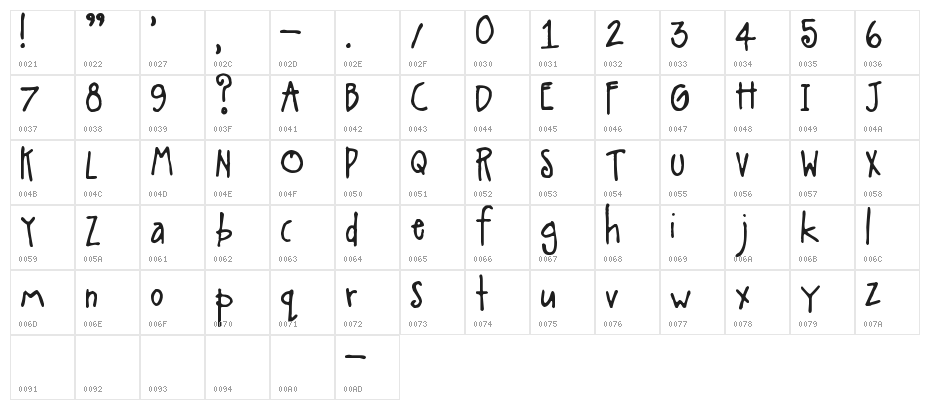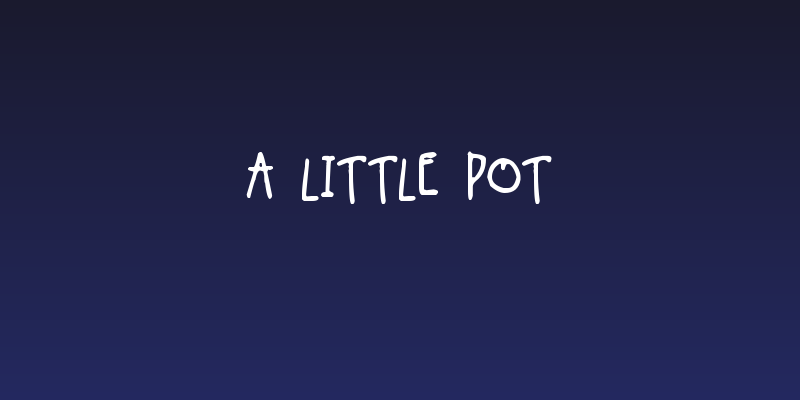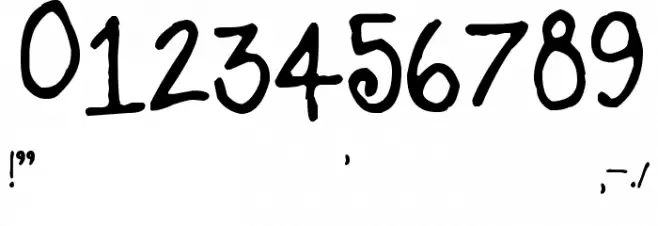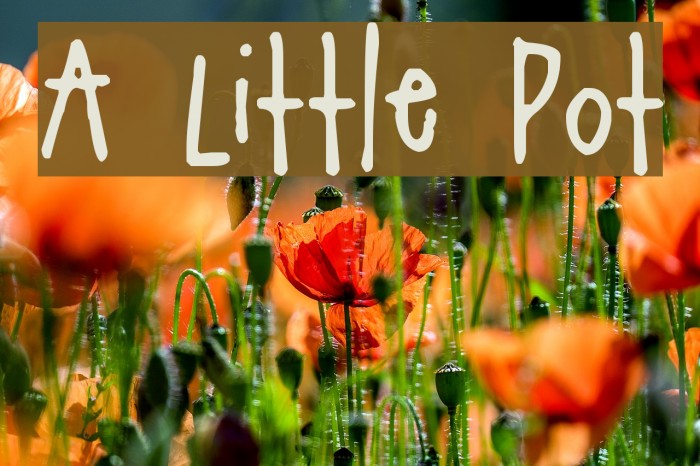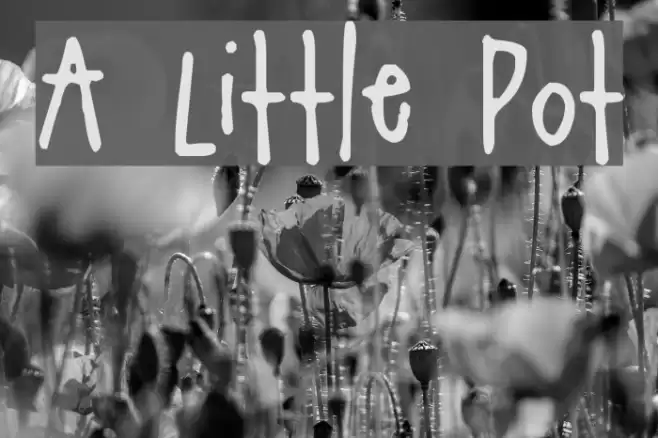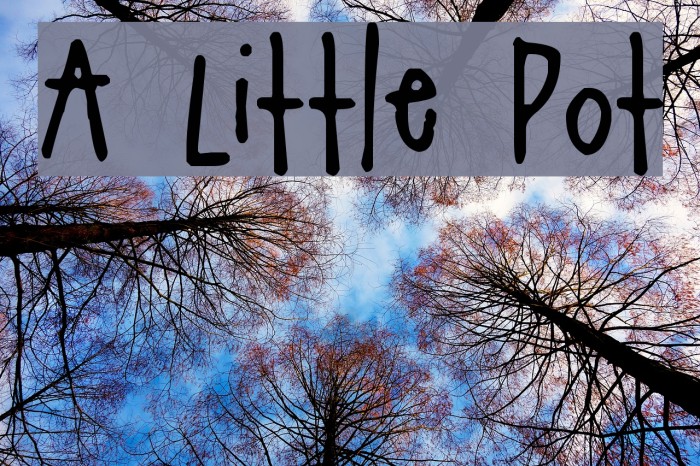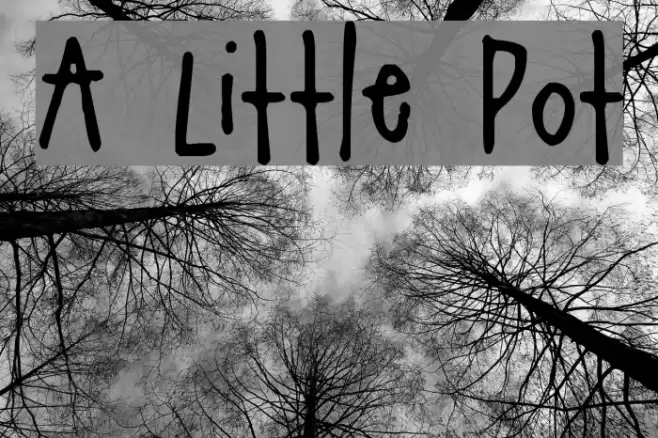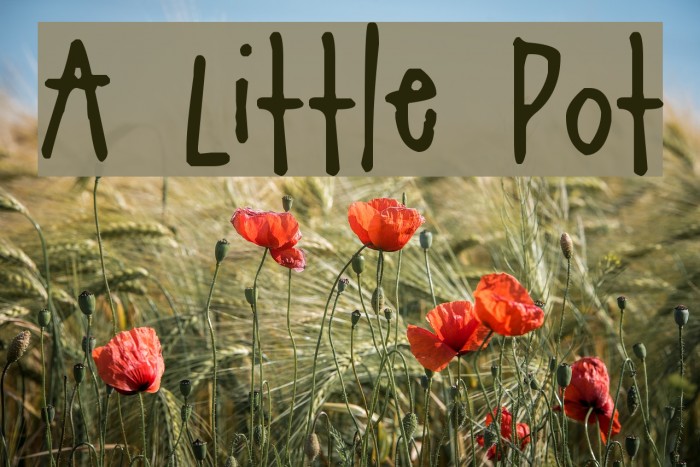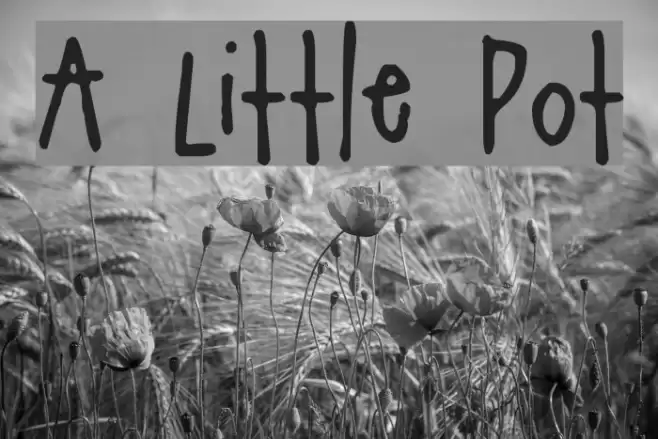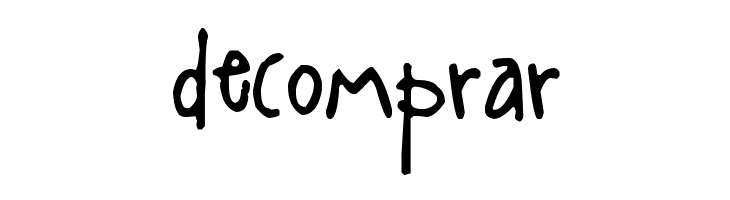
A Little Pot Font
This playful and whimsical font features a hand-drawn style with irregular, slightly wavy lines that give it a casual and friendly appearance. The uppercase letters are bold and prominent, while the lowercase letters maintain a consistent flow with a slightly narrower form. The numbers are rounded and maintain the same playful aesthetic, making them easy to read. Special characters are included, adding versatility for various uses. The overall design is reminiscent of handwriting, with a touch of artistic flair, making it suitable for projects that require a personal and approachable feel.
| Overall Style | Casual, Playful |
| Use Case | Headlines, Informal text, Creative projects |
| Proposed Projects | Ideal for children's books, greeting cards, playful branding, and casual invitations. |